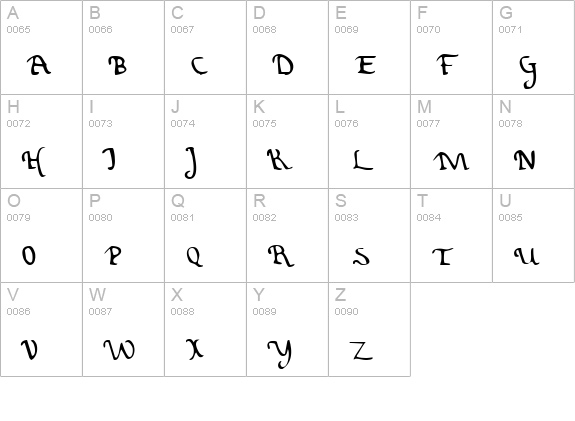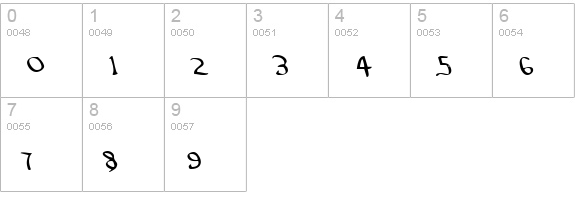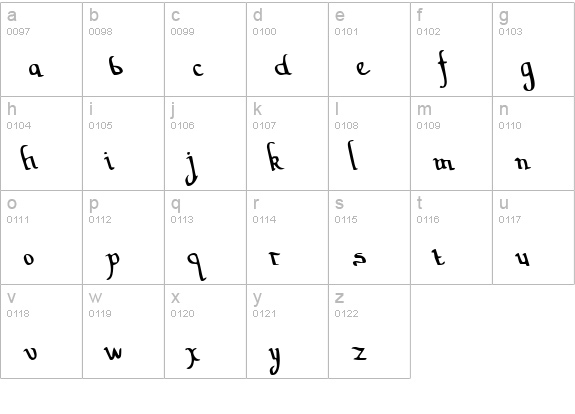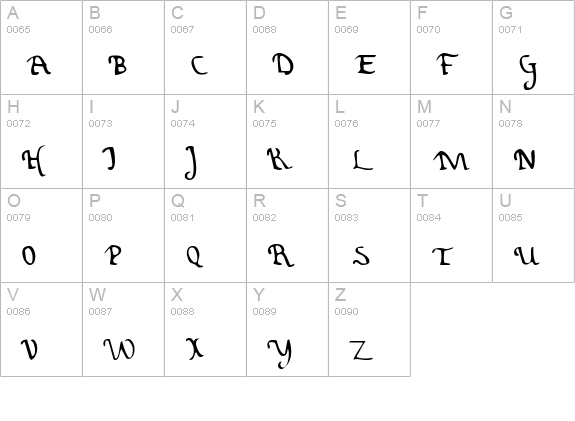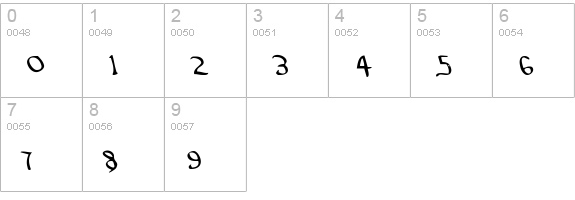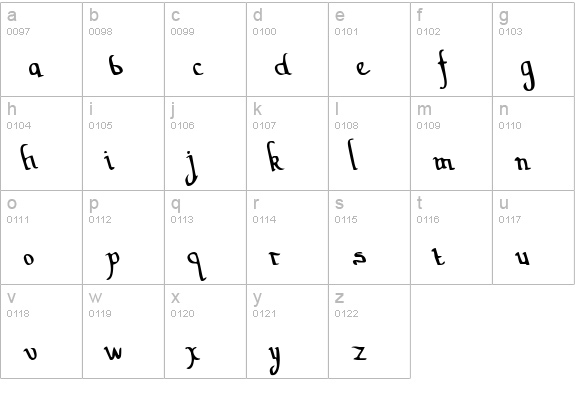
Valley Forge Leftalic font is a modern and stylish typeface that exudes elegance and sophistication. Its sleek and slanted design adds a touch of flair to any project, making it perfect for both professional and creative use. The unique curves and sharp angles of Valley Forge Leftalic create a visually stunning appearance that is sure to captivate your audience. What makes Valley Forge Leftalic even more appealing is that it is available for free download at FontsMarket.com. This means you can easily access this high-quality font without any cost, making it a valuable addition to your font collection. Whether you're designing a logo, poster, or website, Valley Forge Leftalic is sure to elevate your work and make a lasting impression. Download this exquisite font today and take your designs to the next level.